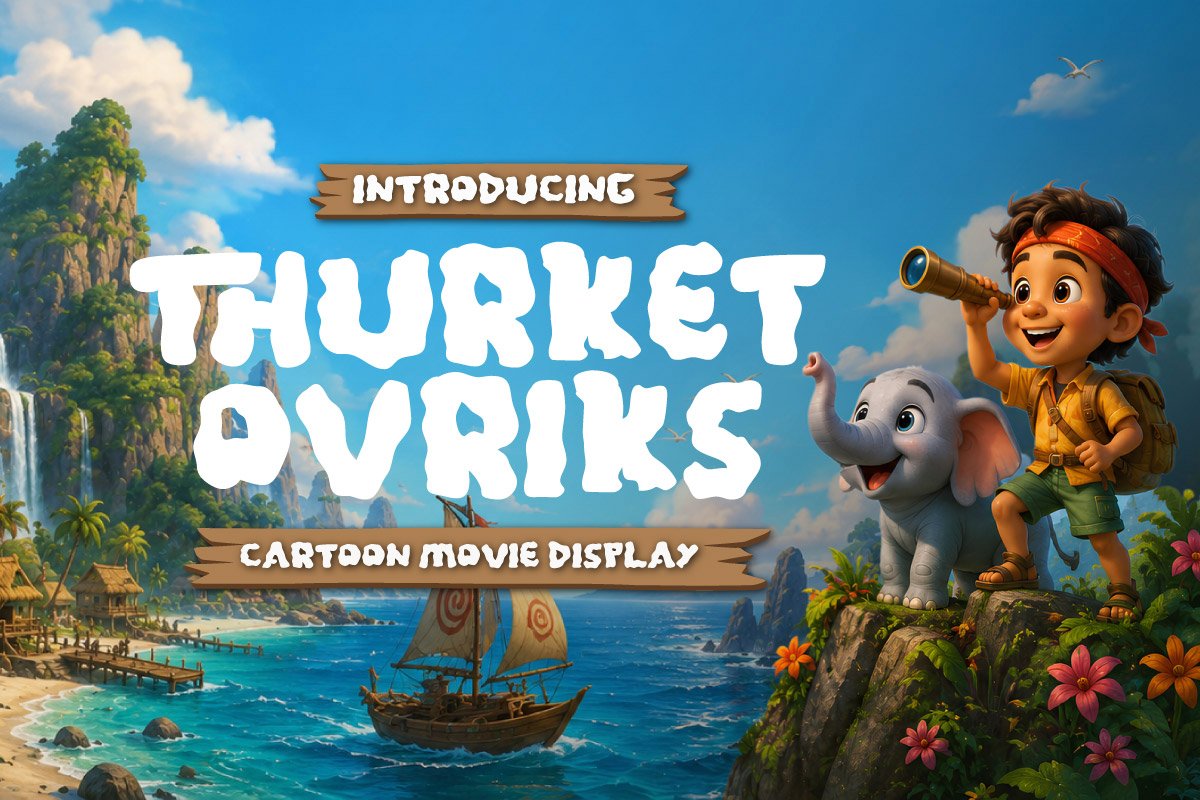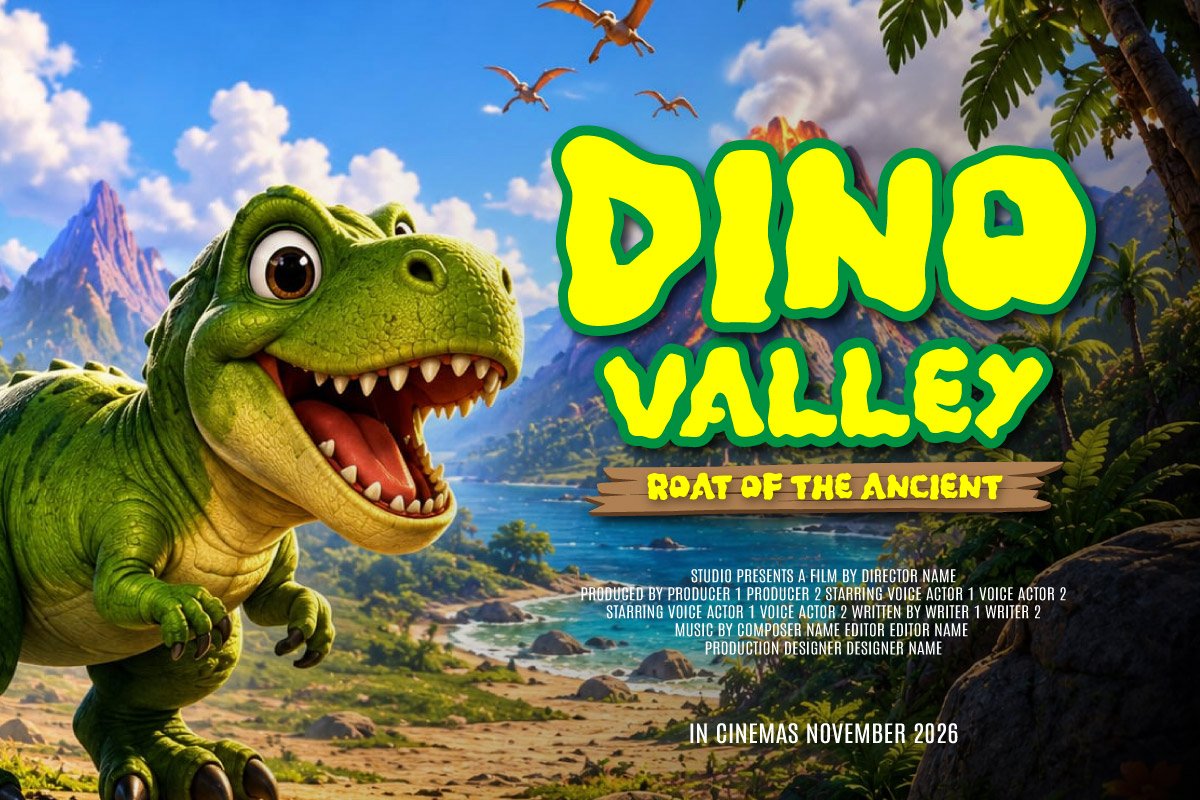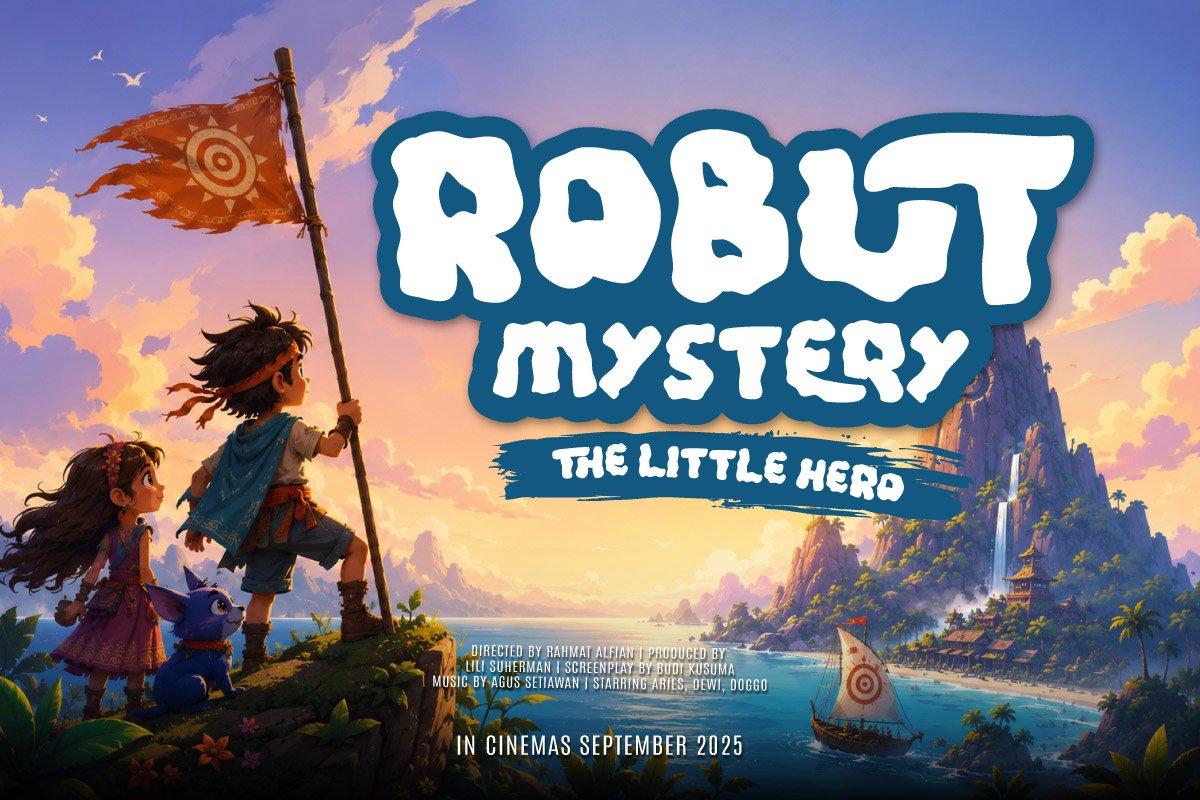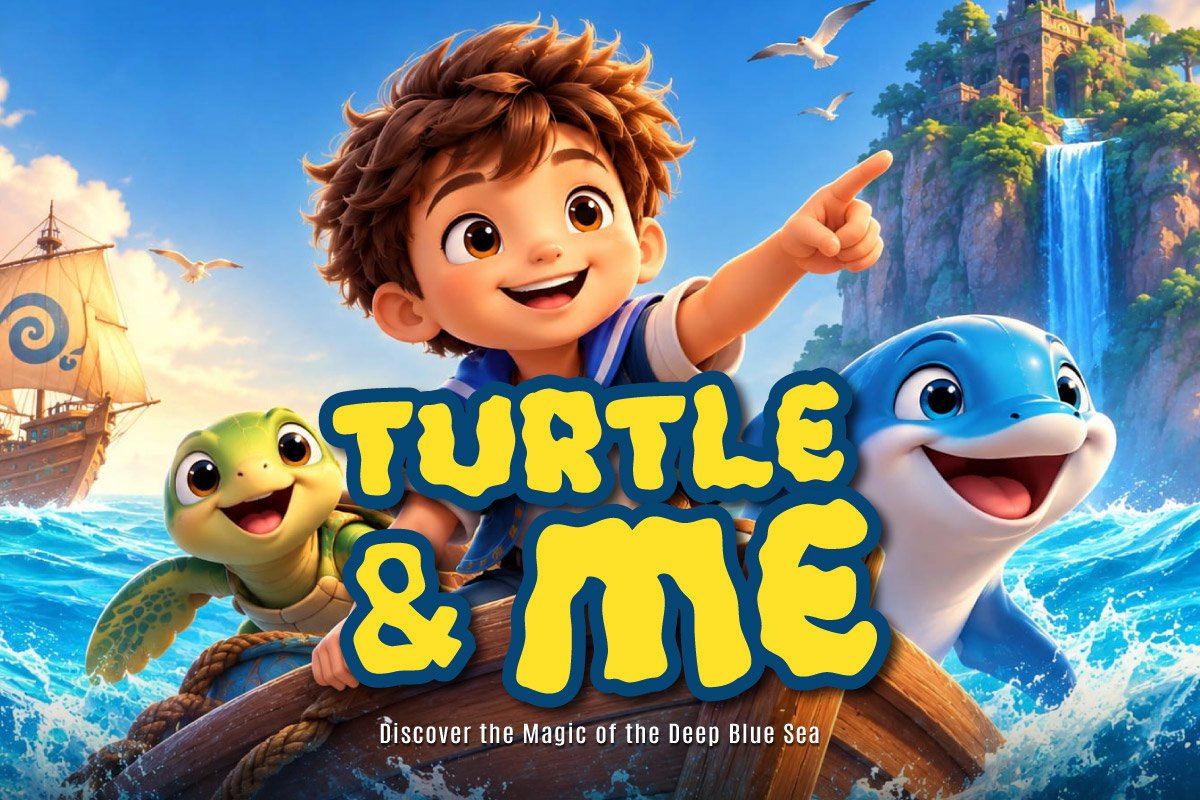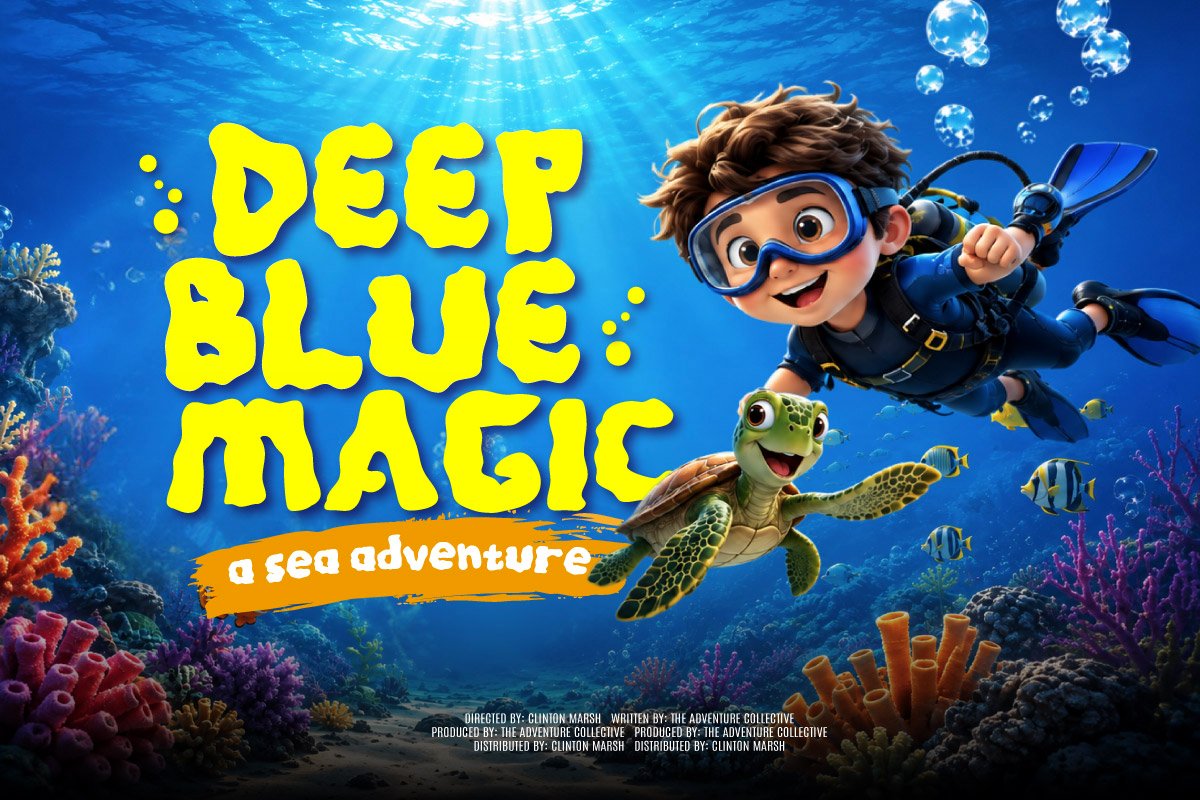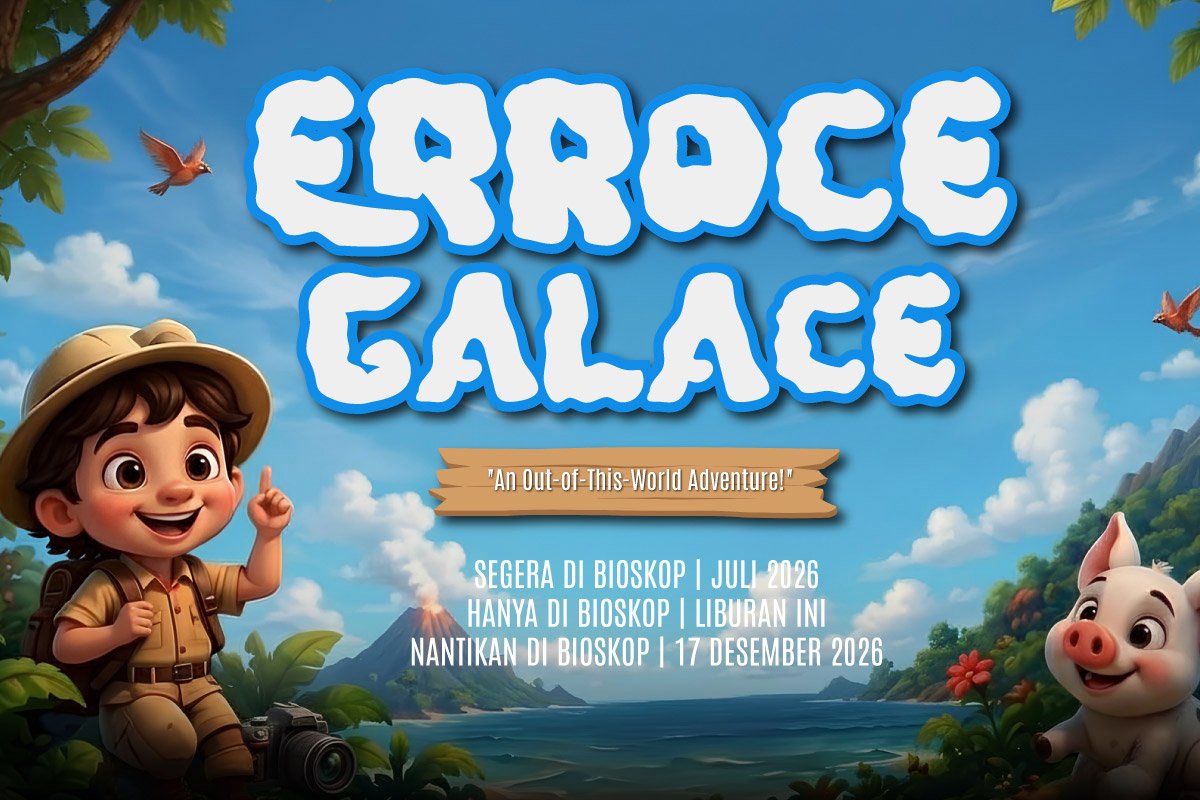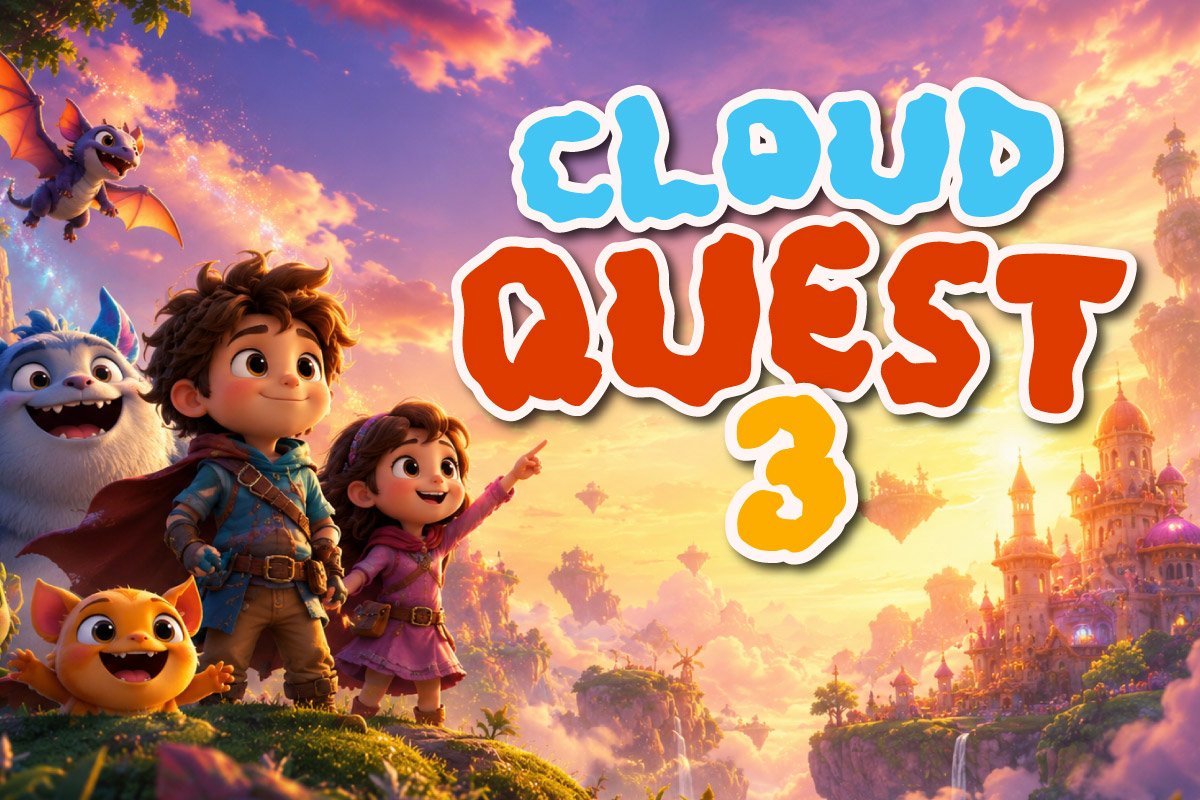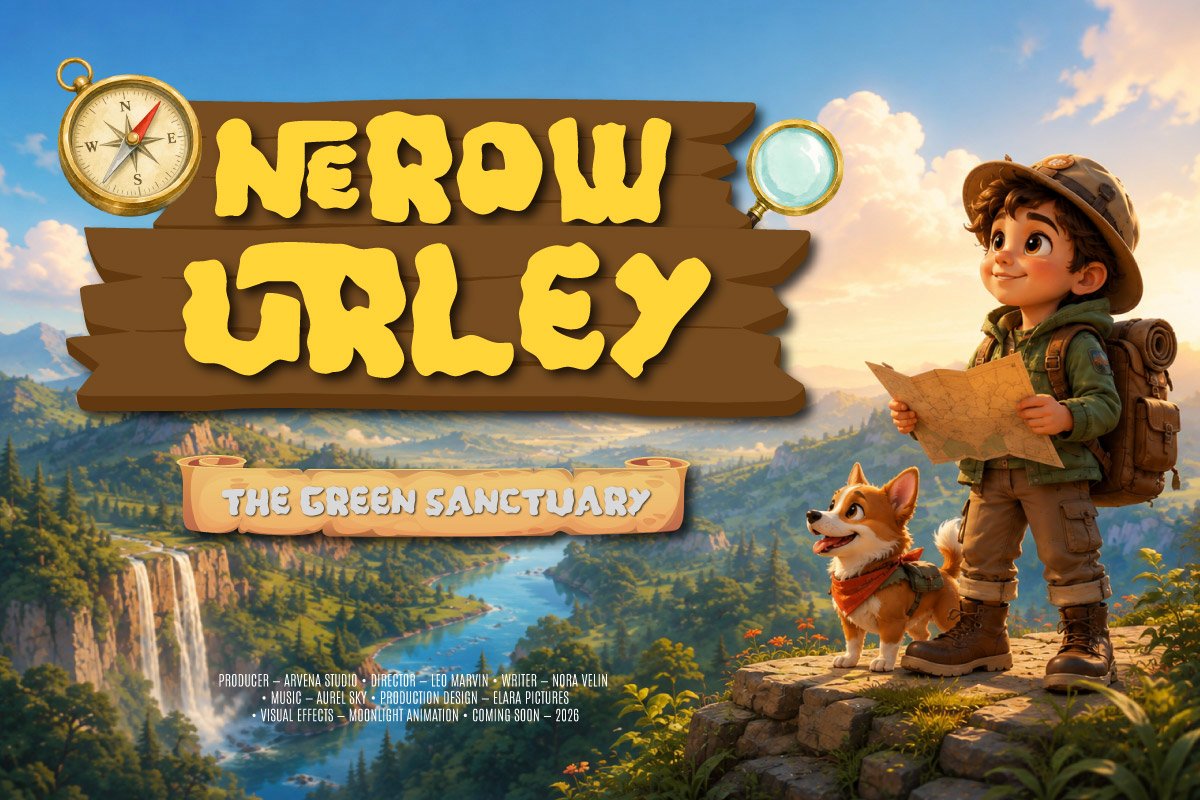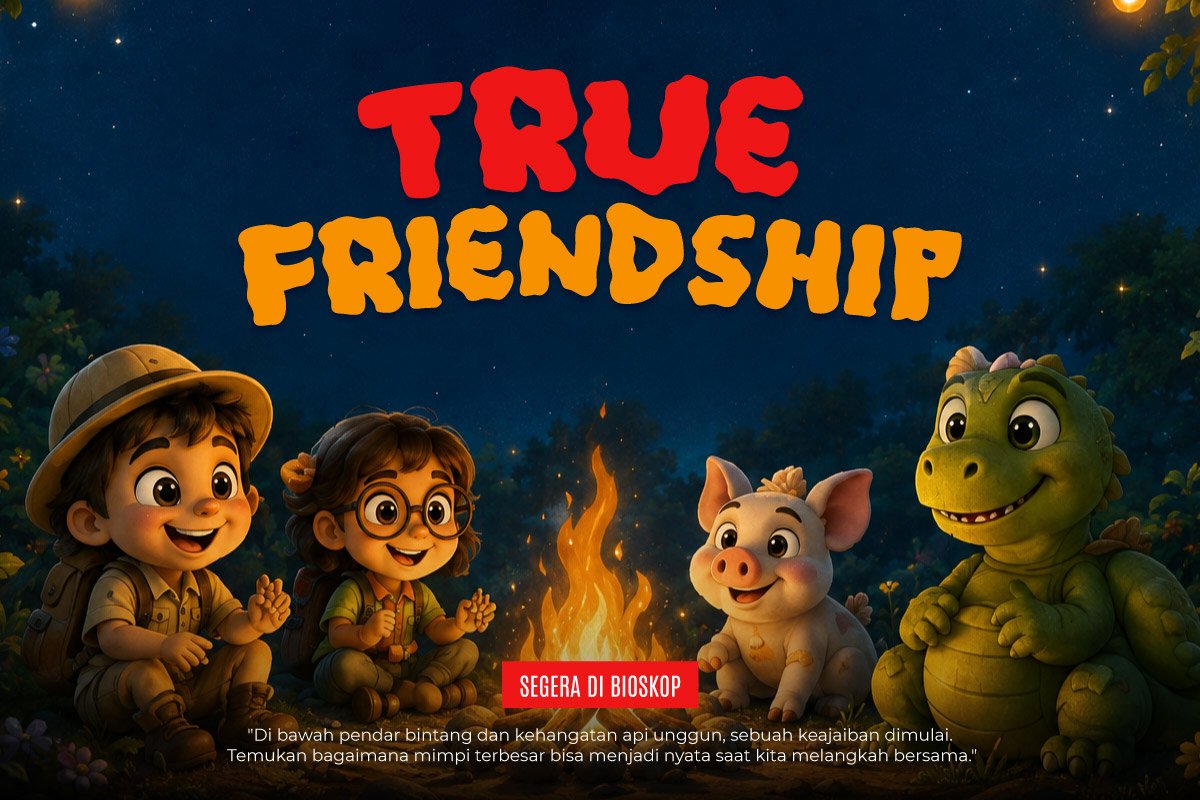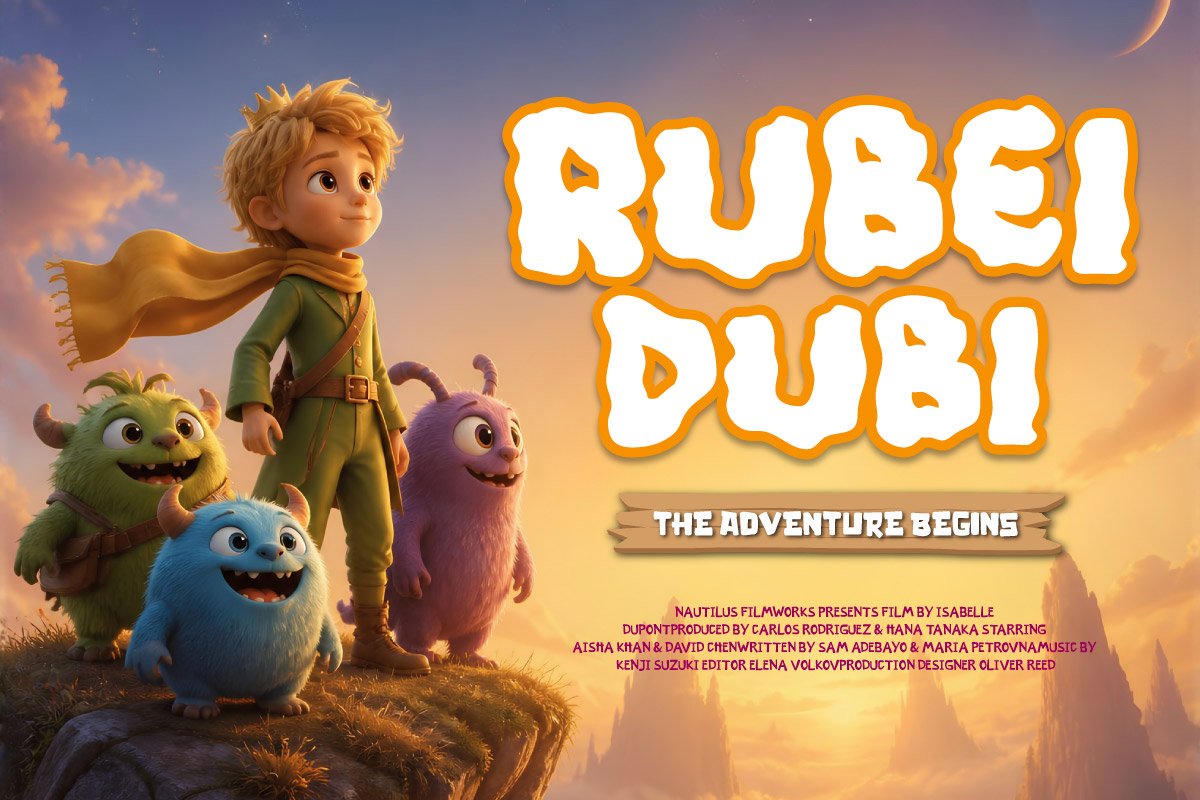
- Thurket Ovriks – Movie Cartoon Font
Thurket Ovriks – Movie Cartoon Font is a playful display font featuring organic, chunky, and expressive letterforms designed to create a cheerful, adventurous, and family-friendly atmosphere. Its unique and friendly character works beautifully for eye-catching titles in children’s, adventure, and entertainment projects.
This font is ideal for children’s adventure, travel documentaries, nature educational content, and big screen promotion. Use it for movie titles, animated film posters, children’s books, adventure branding, educational media, YouTube thumbnails, promotional campaigns, merchandise, and studio graphics. Its fun and memorable appearance helps create a warm, imaginative, and energetic visual identity.
Thurket Ovriks is a strong choice for graphic designers, movie studios, children’s content creators, illustrators, and creative agencies looking for a cartoon display font for bold headlines, posters, title treatments, and entertainment projects with a distinctive and approachable personality.